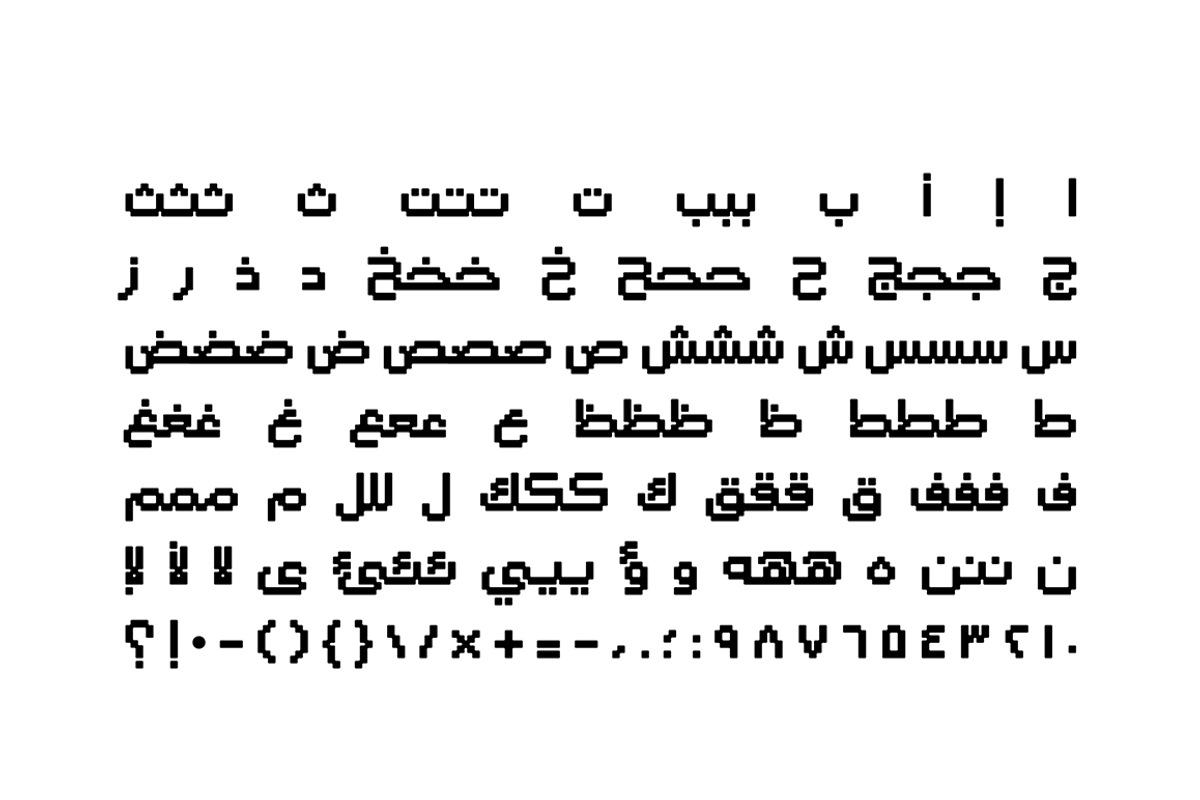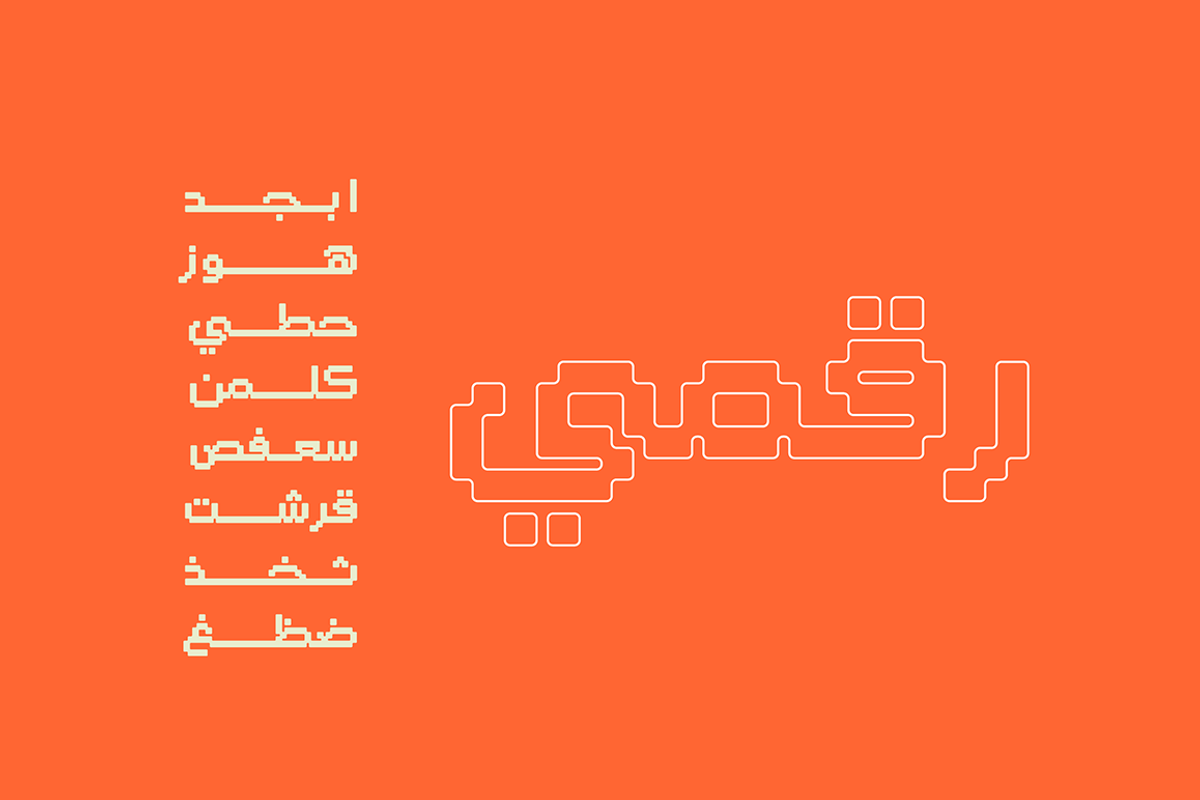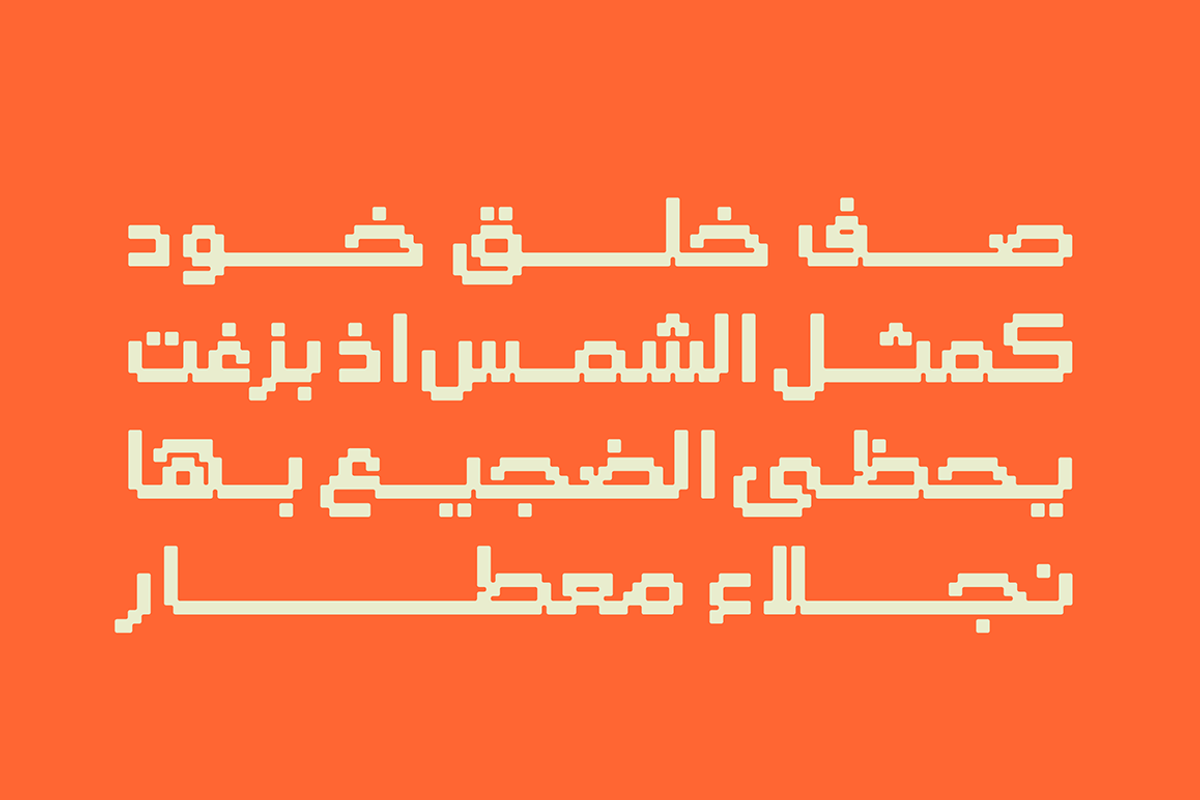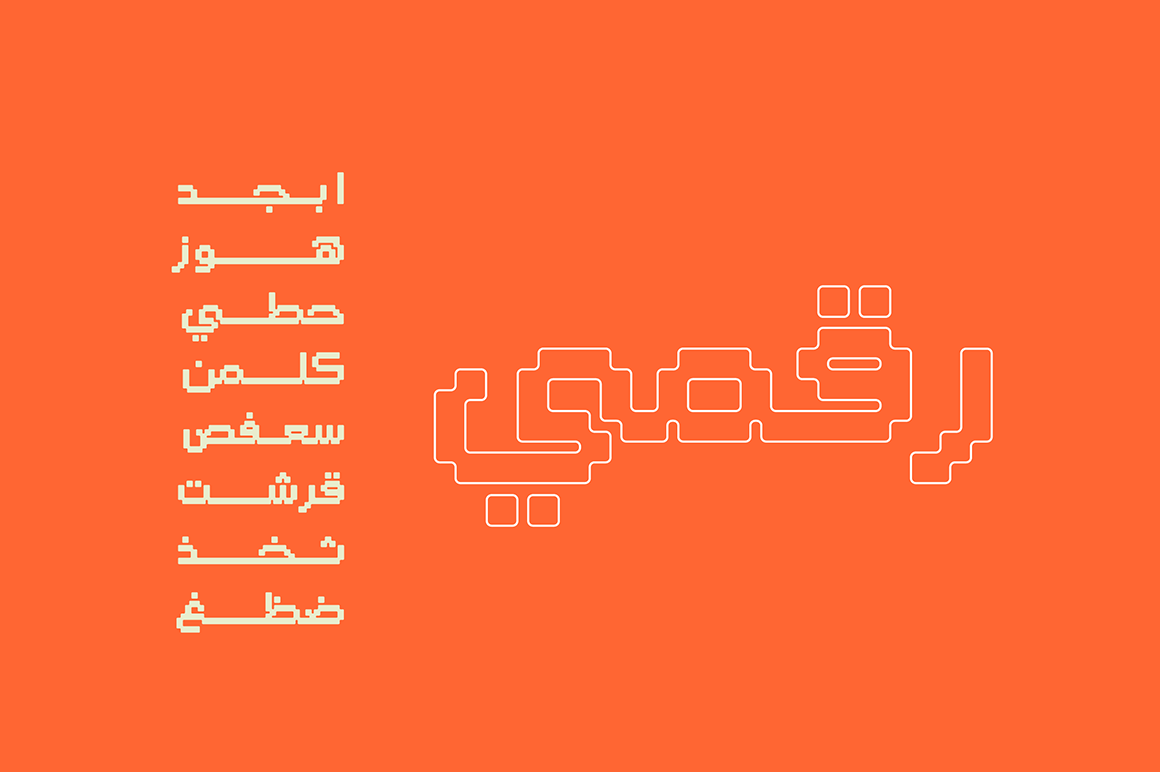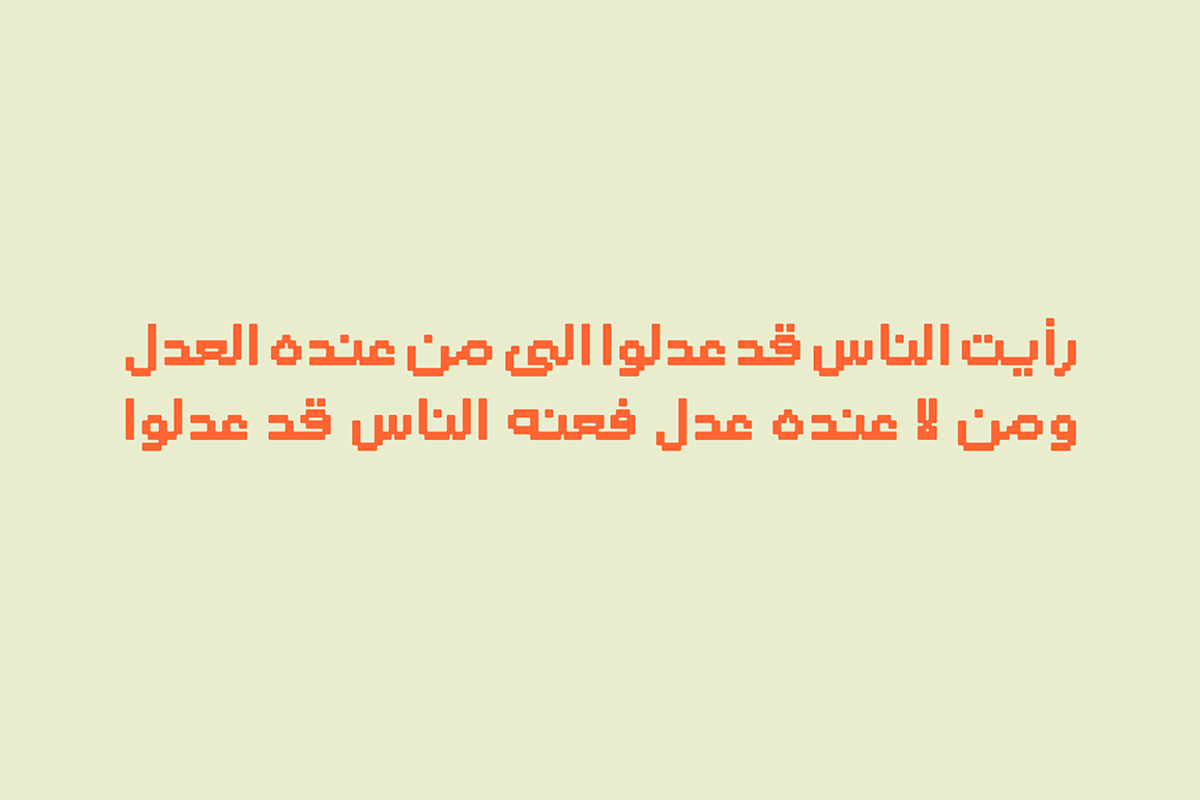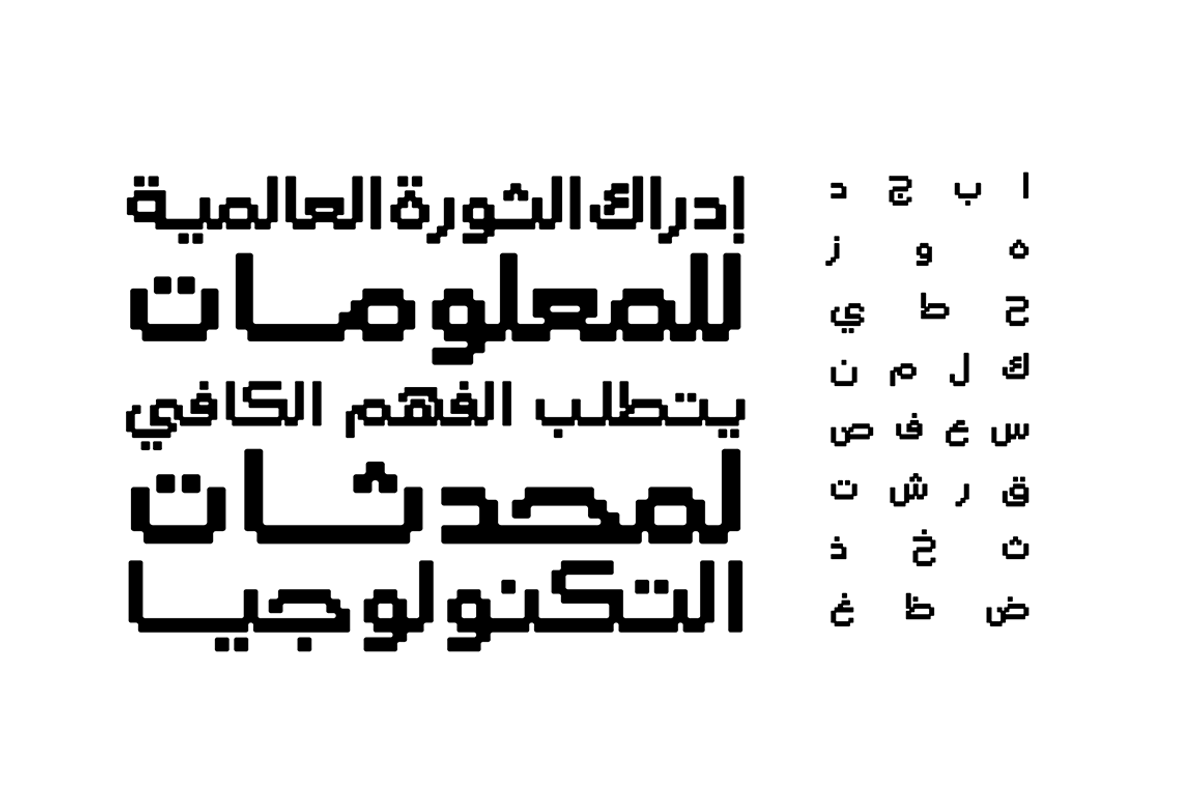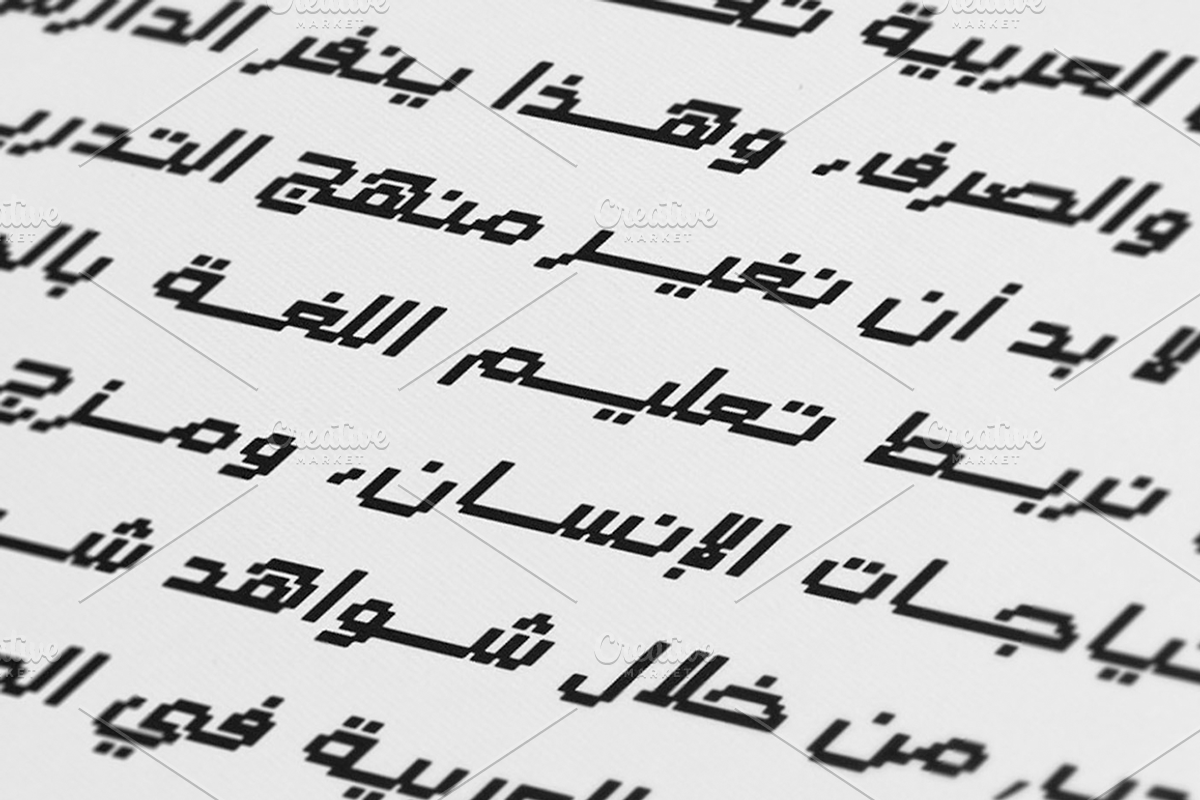
Raqami - Arabic Font
Raqami (the Arabic word for 'Digital') is a unique Arabic display font characterised by its striking pixelated design, reminiscent of classic 8-bit graphics.. Raqami is ideal for a variety of creative projects, such as web design, print, advertising, and UI/UX development.